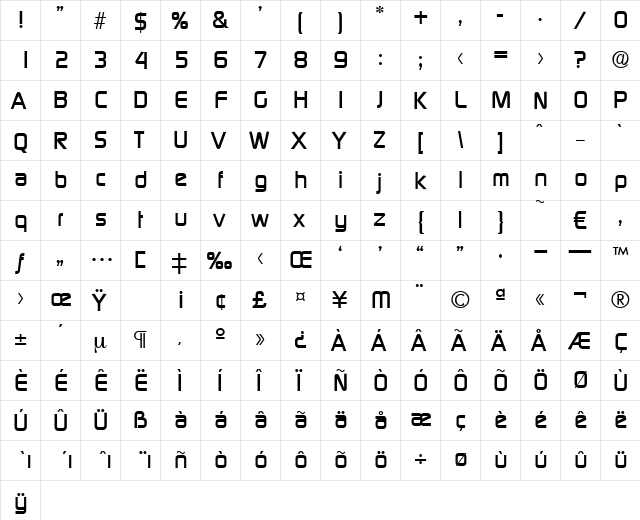
Digital-Medium Regular
Design Context for Digital-Medium Typeface
Digital-Medium channels digital-age aesthetics through its sharp, structured letterforms — ideal for brands that want to signal innovation.
Pro Tip: Try Digital-Medium with generous letter-spacing in UI labels and navigation — the geometric forms benefit from room to breathe.